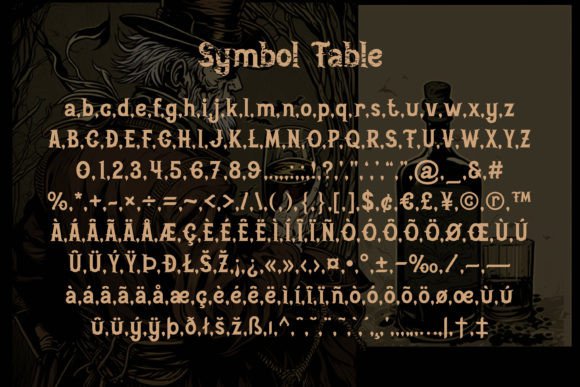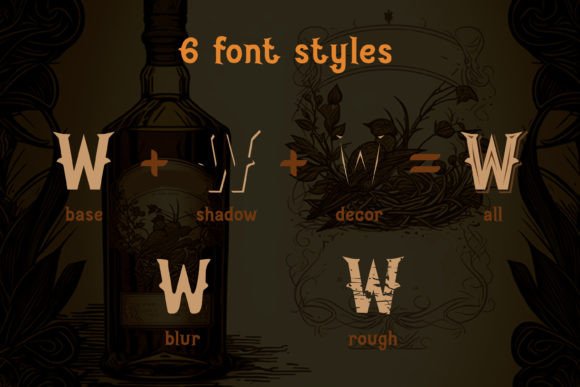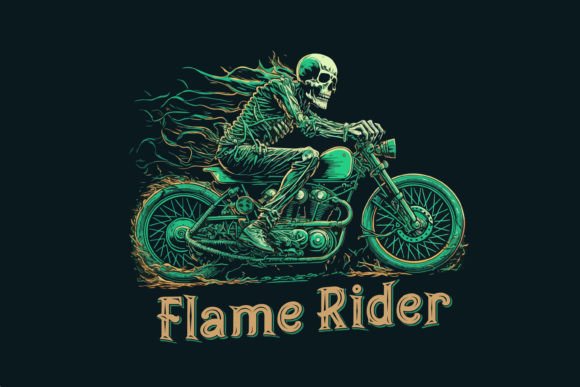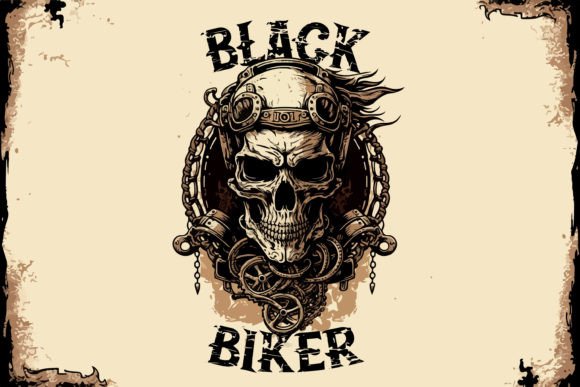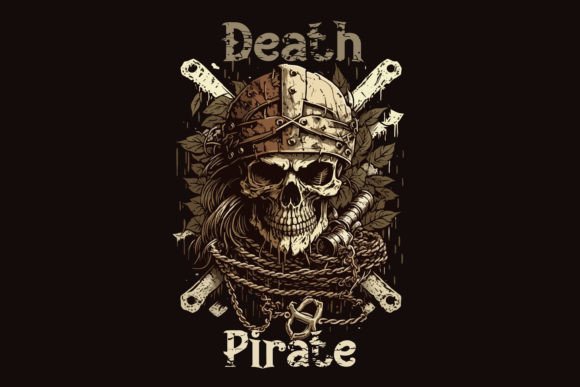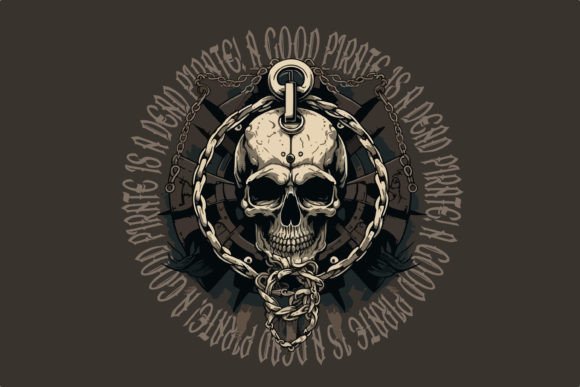
A Vintage Touch for Your Designs
Have you ever stared at a beautifully crafted whiskey barrel, imagining the rich flavors and stories it holds within? For designers, that moment of inspiration can strike anywhere, and often leads to a quest for the perfect font to bring their vision to life. The Aged Whiskey Font is a perfect match for those who crave a vintage touch in their designs.
This charming font is designed to evoke the nostalgia of a bygone era, making it well-suited for labels, headings, logos, and illustrations. Its unique character and flair will add a touch of sophistication to any project. As a bonus, the Aged Whiskey Font comes with a set of various illustrations for T-shirts, available in eps and png format.
Aged Whiskey Font Key Features
- Unique Characteristics: Distressed and worn textures evoke the appearance of aged whiskey barrels, adding a touch of elegance and sophistication to designs.
Aged Whiskey Font Review
Aged Whiskey Font is a unique and elegant serif font that’s perfect for adding a touch of sophistication to any design. ✨ The font’s distressed and aged look gives it a vintage feel that’s reminiscent of old whiskey barrels. It’s a great choice for designers who want to create a sense of nostalgia and history in their projects.
- ✨ Elegant and sophisticated design
- ✨ Distressed and aged look adds a vintage feel
- ✨ Suitable for a wide range of designs, from whiskey labels to luxury brands
- ✨ Works well in both print and digital formats
- ⚠️ Limited character set and language support
- ⚠️ May not be suitable for designs that require a more modern or clean look
- ⚠️ Can be difficult to read in certain font sizes or resolutions
Overall, I think Aged Whiskey Font is a great choice for designers who want to add a touch of elegance and sophistication to their projects. While it may have some limitations, it’s a unique and versatile font that can be used in a wide range of designs. With a little creativity and experimentation, designers can get the most out of this font and create stunning results.
The Aged Whiskey Font is ideal for creating vintage or retro-themed designs. Common use cases include:
- Restaurant menus and signage
- Wine and spirits branding
- Retro-style posters and advertisements
- Old-timey typography for packaging and labels
For the best results, pair the Aged Whiskey Font with distressed textures and vintage-inspired graphics.